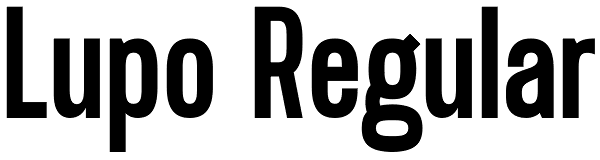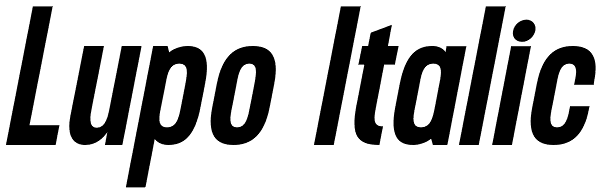
Lupo
Font Lupo is the younger brother of Kapra. However, unlike Kapra it is characterized by the sharpness of the finish. It is inspired by a You And Me Monthly published by National Magazines Publisher RSW „Prasa” that appeared from Mai 1960 till...